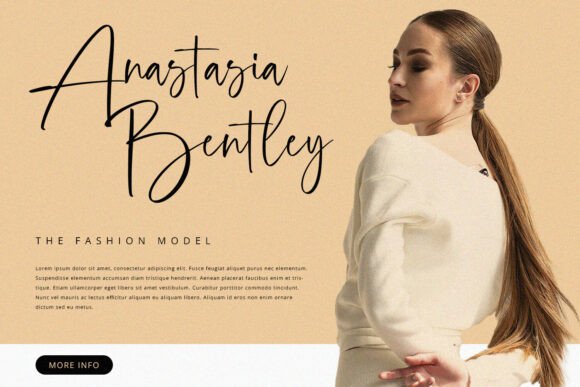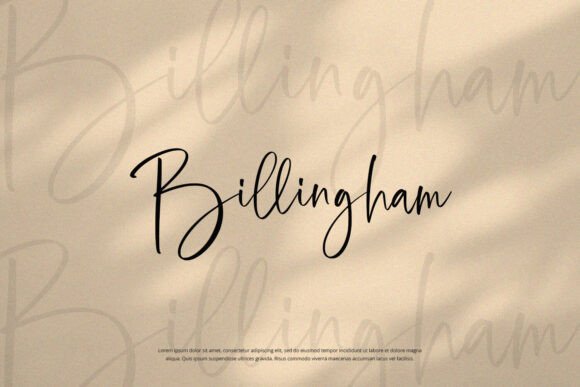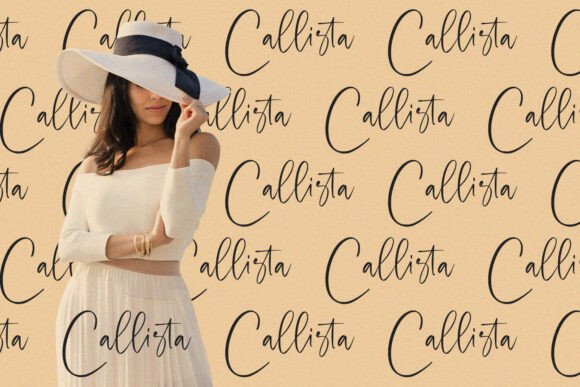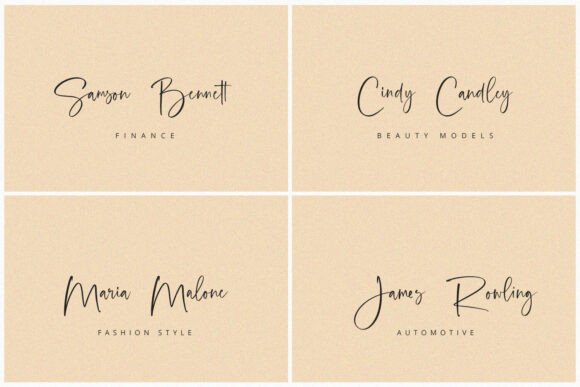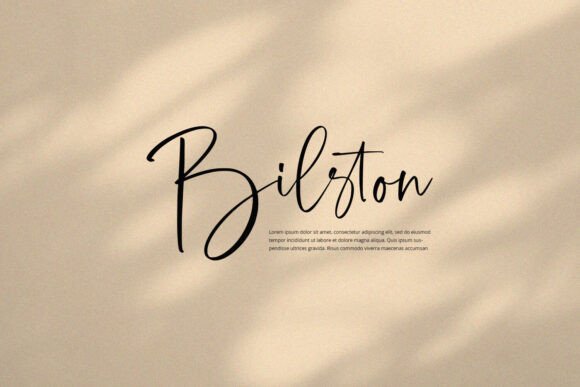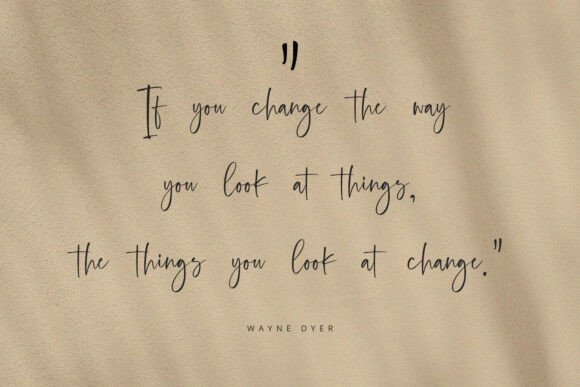
Introduction to Sibilant Font Font
Fonts play a crucial role in design, and the Sibilant Font font is a typeface that brings both character and versatility to any project. Whether you’re working on a branding project, a website, or a print design, the Sibilant Font font offers a unique style that can elevate your work.
Sibilant is a handwritten font with a unique and modern feel.
It will be perfectly used for Branding, Logo Design, Lettering, Logotype, Clothing, Posters, magazines, packaging, posters, shopping bags, t-shirts, book covers, photography, special events, and other design projects .
Key Features of Sibilant Font Font
Why Choose Sibilant Font Font?
The Sibilant Font font is more than just a typeface – it’s a design tool that helps you communicate your message with style and clarity. Its unique character set and versatile design make it suitable for a wide range of applications, from elegant invitations to bold headlines.
With its carefully crafted letterforms and balanced proportions, the Sibilant Font font ensures readability and visual appeal across all mediums.
What makes Sibilant Font font special?
The Sibilant Font font stands out with its unique design, exceptional readability, and versatility across various design applications.